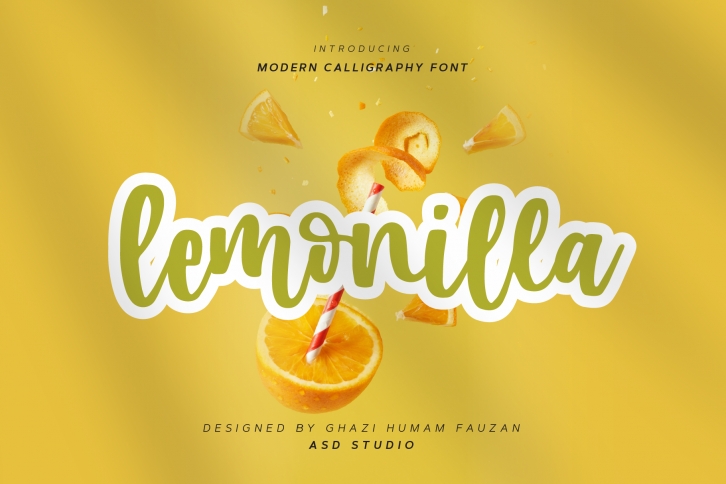
Lemonilla is a beautiful and quirky handwritten font. Whatever the topic, this font will be a wonderful asset to your font library, as it has the potential to enhance any creation. Its natural and unique style makes it incredibly fitting to a large pool of designs. The only limit is your imagination!